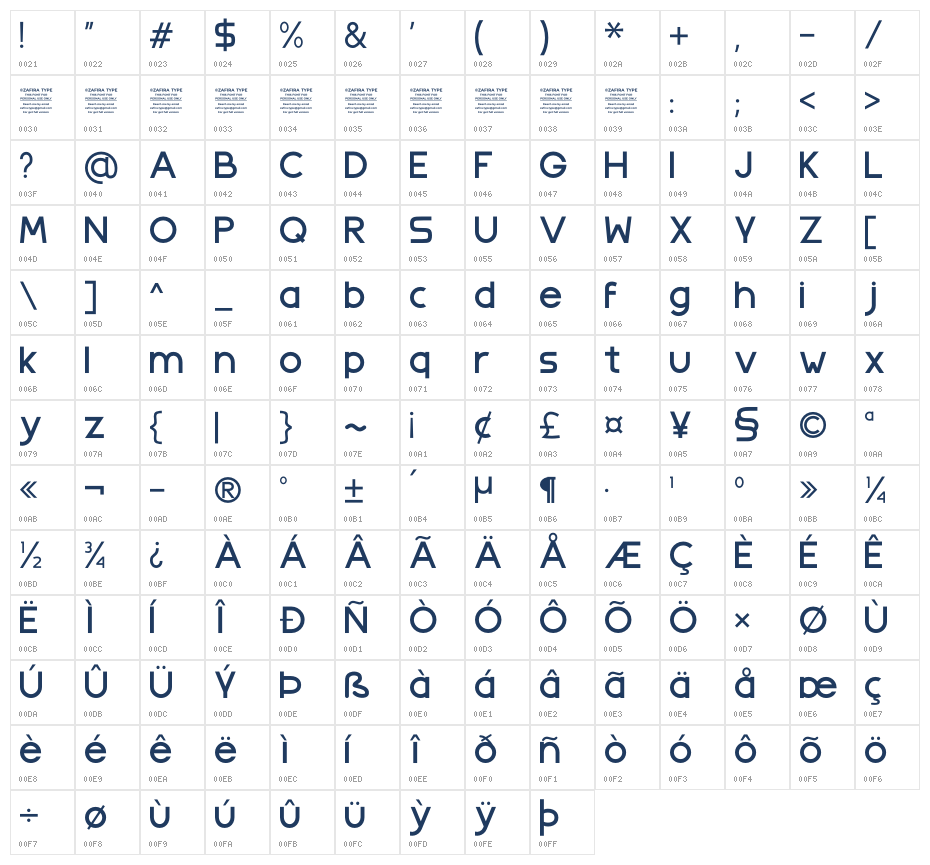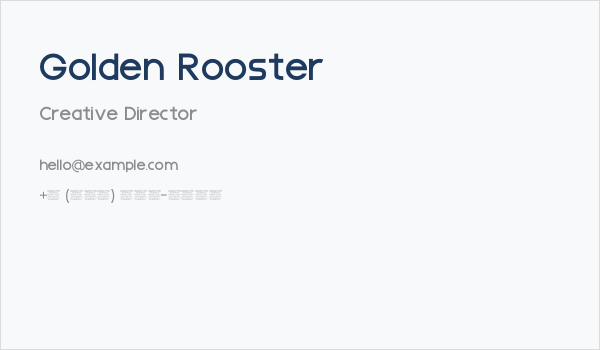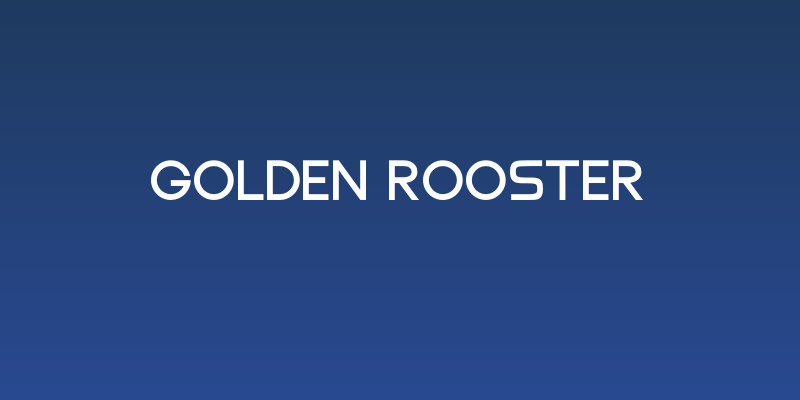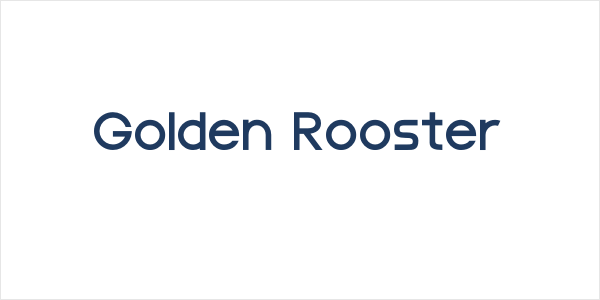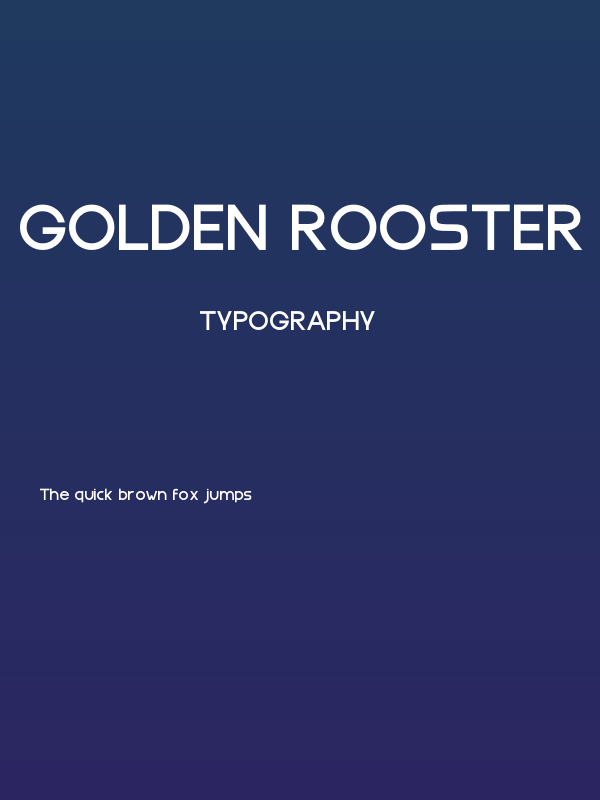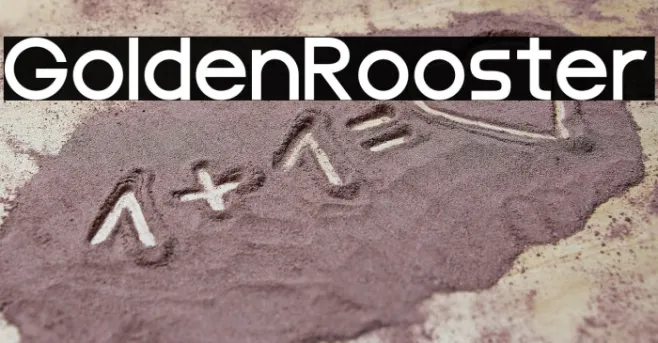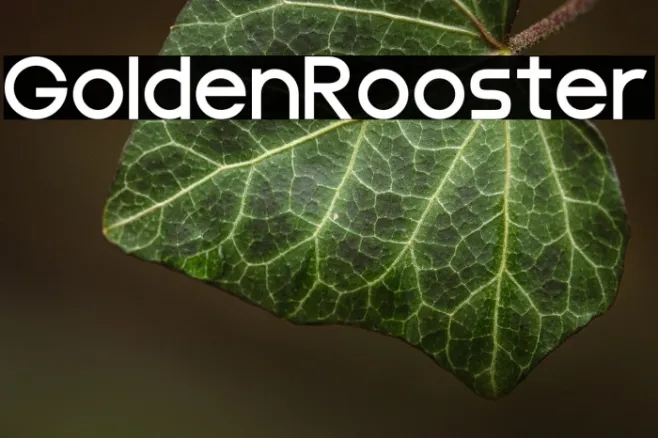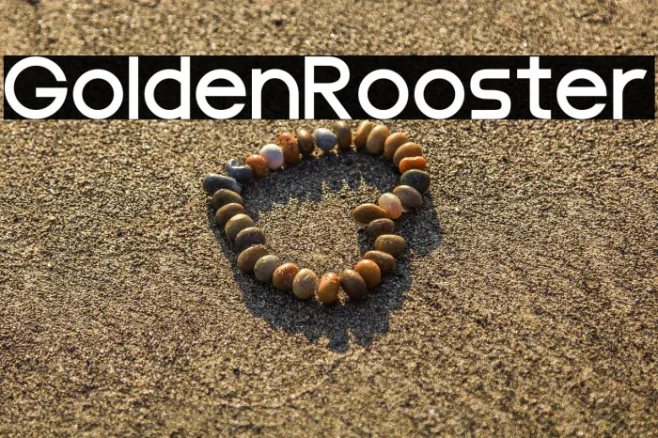
Golden Rooster Font
Golden Rooster Description
A modern, sans-serif font with clean, rounded letterforms and consistent stroke widths.
| Overall Style | Modern, Geometric |